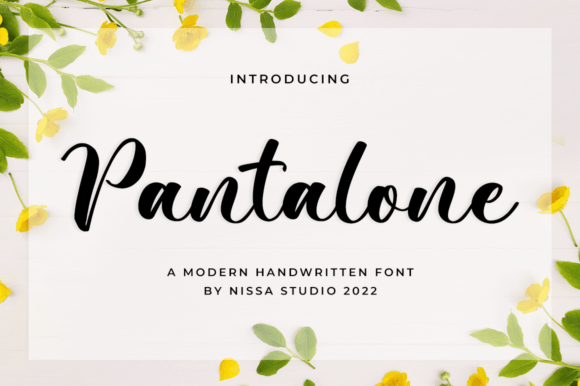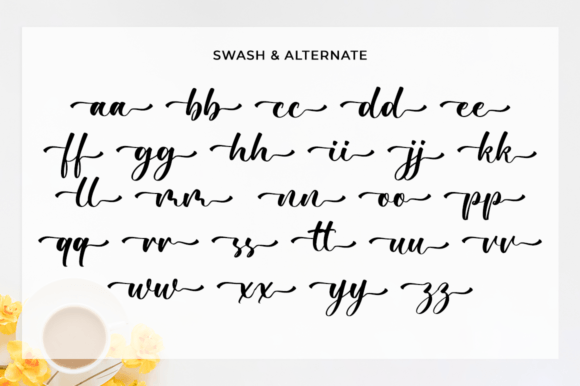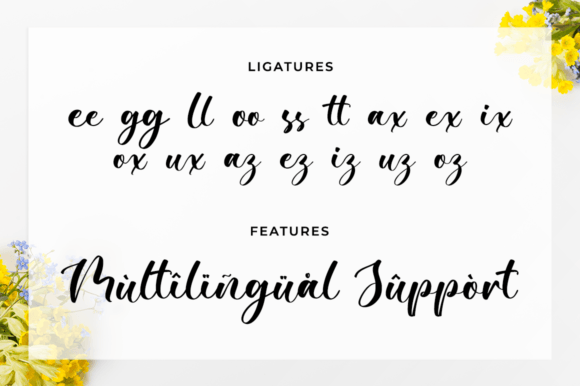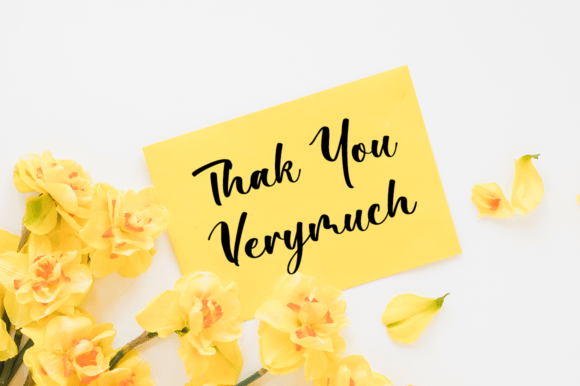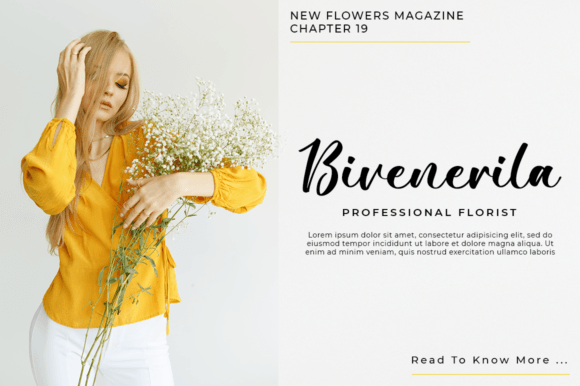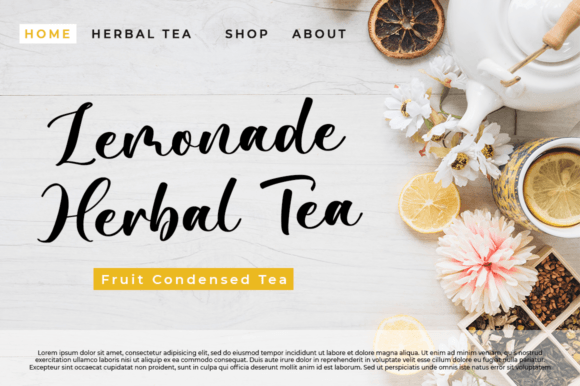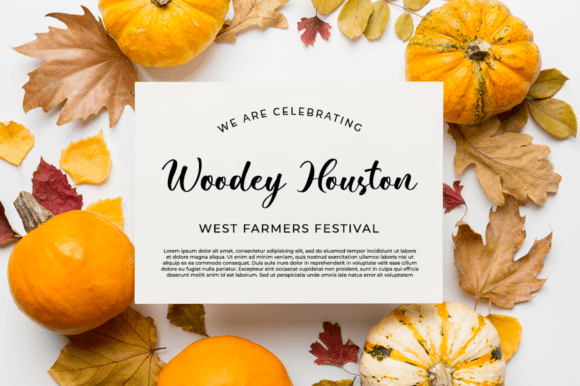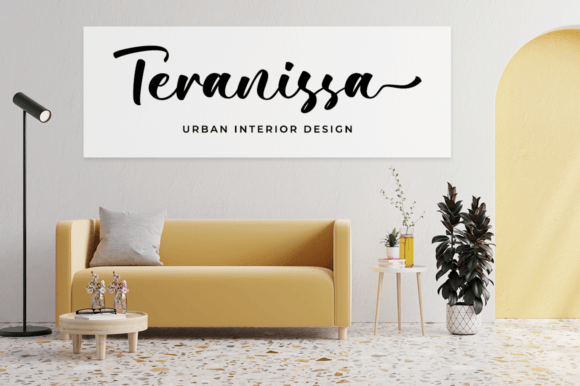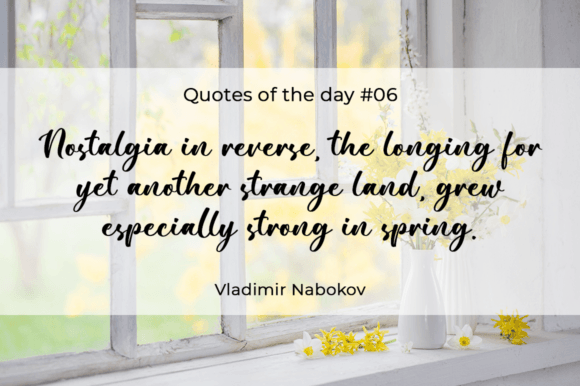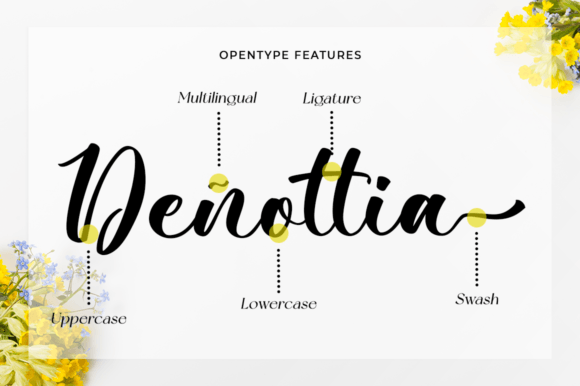
Pantalone Font
Pantalone Font Download – Elegant Delicate Script Typeface
The Pantalone Font download is a lovely and delicate script font that radiates elegance and charm. With its graceful strokes and timeless appeal, this typeface is perfect for anyone who wants to bring sophistication into their designs. Whether you’re creating invitations, logos, or stationery, Pantalone makes every project shine with class and refinement.
A Lovely and Elegant Script Style
The Pantalone Font download features soft curves and balanced letterforms that create a refreshing handwritten look. Its delicate flow adds warmth and personality, while still maintaining the professionalism required for branding and formal projects.
The Pantalone Font download is ideal for wedding invitations, greeting cards, and event stationery. Its elegant handwritten strokes bring romance and authenticity, making each piece feel unique and memorable.
Great for Logos and Branding
Typography plays a crucial role in brand identity, and the Pantalone Font download is an excellent choice for logos, product labels, and promotional designs. Its graceful curves communicate creativity and trust, helping brands stand out with sophistication.
PUA Encoded for Extra Features
The Pantalone Font download is PUA encoded, which means you can easily access all glyphs, swashes, and special features. This gives you full creative control, ensuring your designs look polished and personalized.
Versatile Across Print and Digital Projects
From posters and banners to digital content and social media graphics, the Pantalone Font download adapts seamlessly to multiple design formats. Its combination of elegance and readability ensures your work always looks professional.
Readability with Class
Some script fonts can feel overly decorative, but the Pantalone Font download maintains clarity while still exuding elegance. Its neat letterforms make it suitable for both large headlines and medium-sized text.
Why Choose Pantalone Font?
Among script fonts, the PantaloneFont download stands out for its delicate beauty, timeless charm, and wide usability. It is refined enough for formal invitations yet approachable enough for creative projects, making it a must-have in any font library.
Add Elegance to Your Designs
Typography defines the personality of your work, and the PantaloneFont download helps you communicate sophistication, romance, and creativity. Whether for stationery, branding, or digital graphics, this font ensures your designs look polished and memorable.